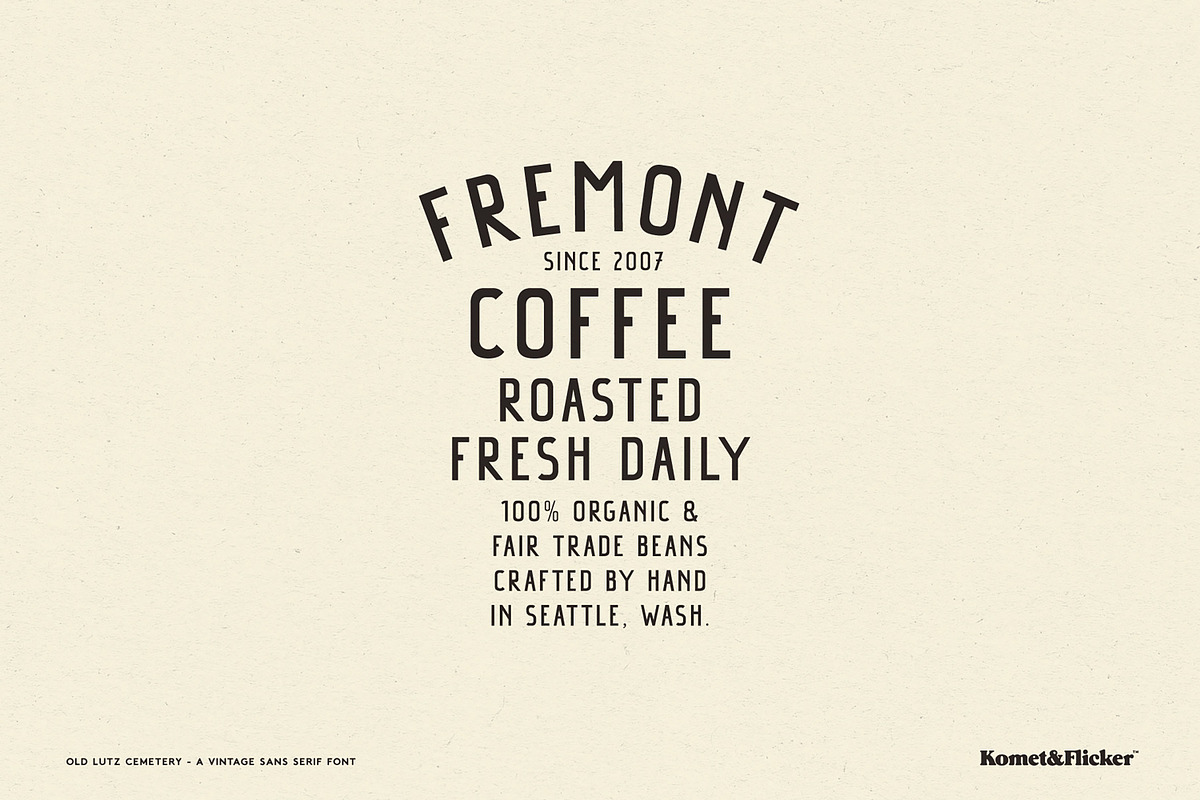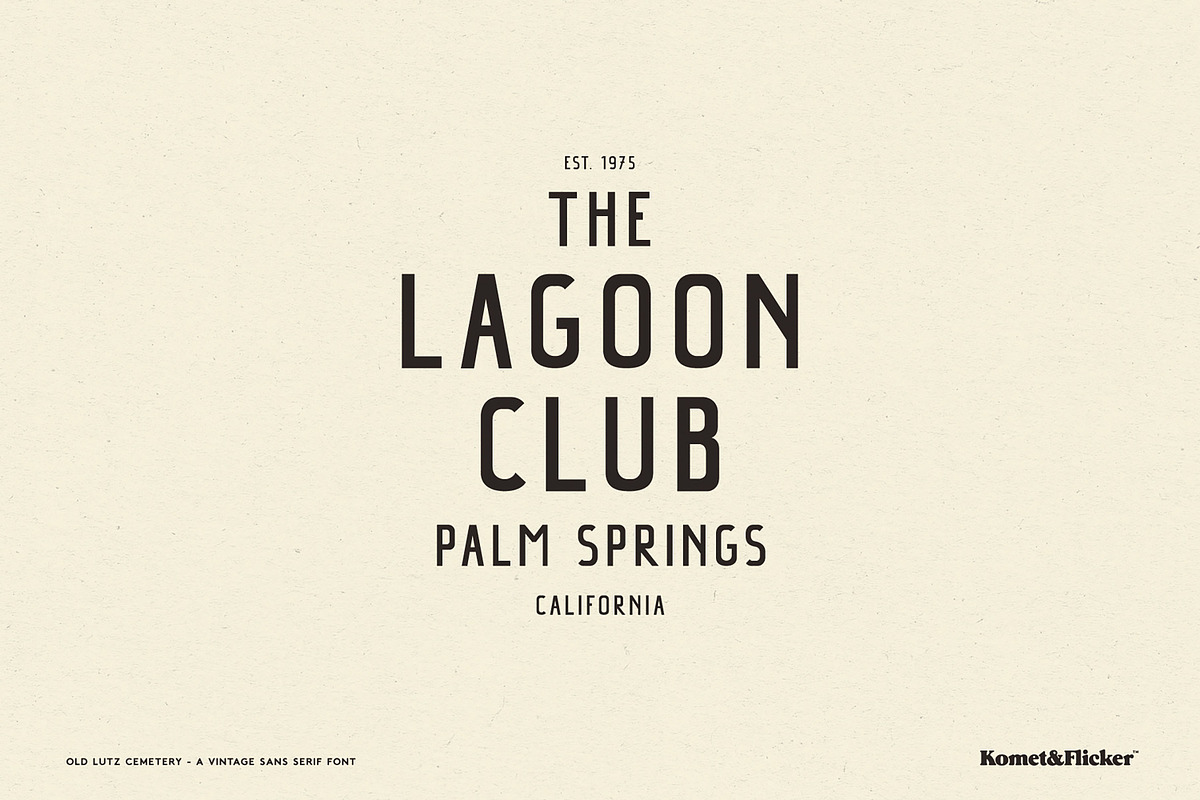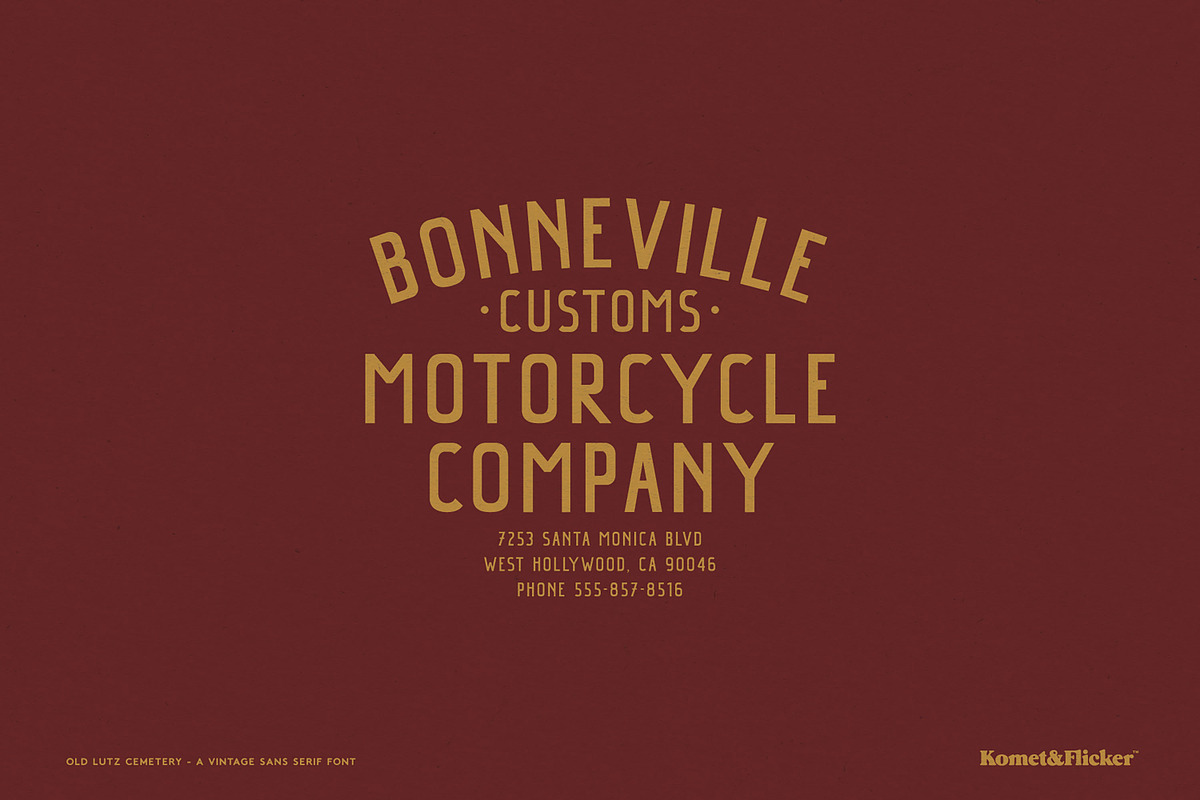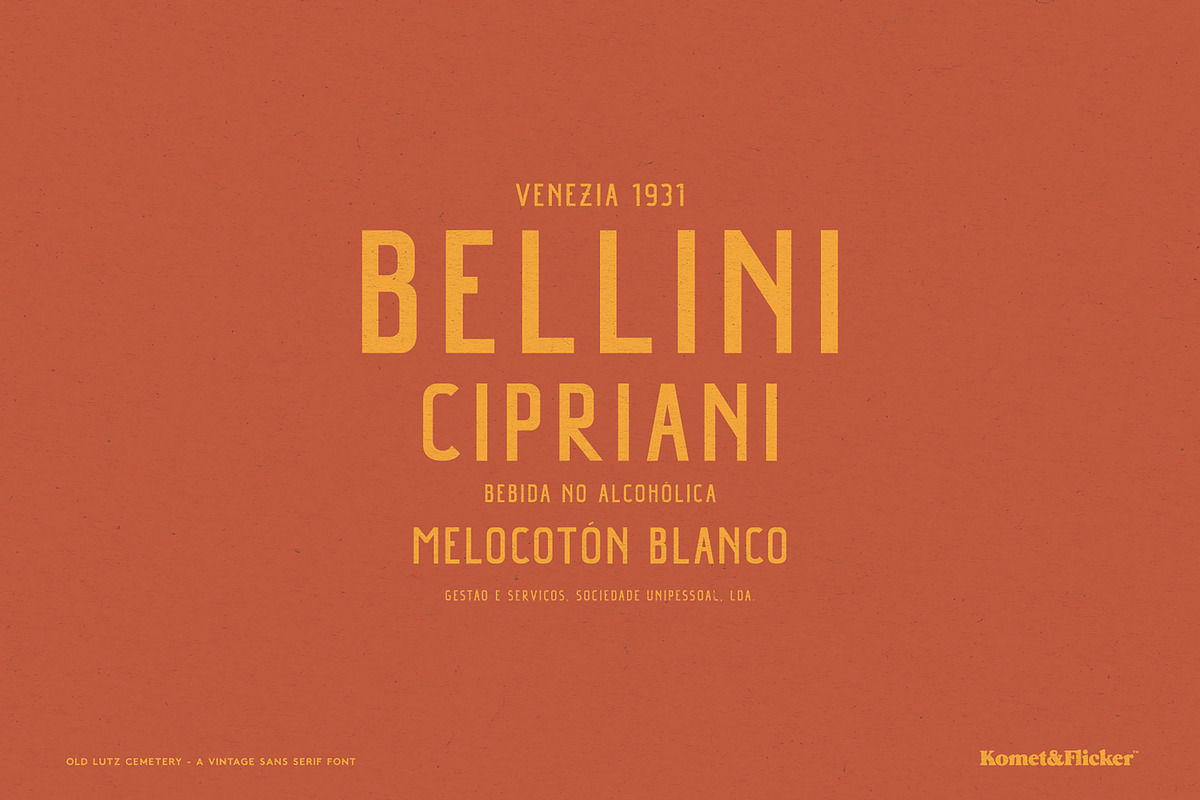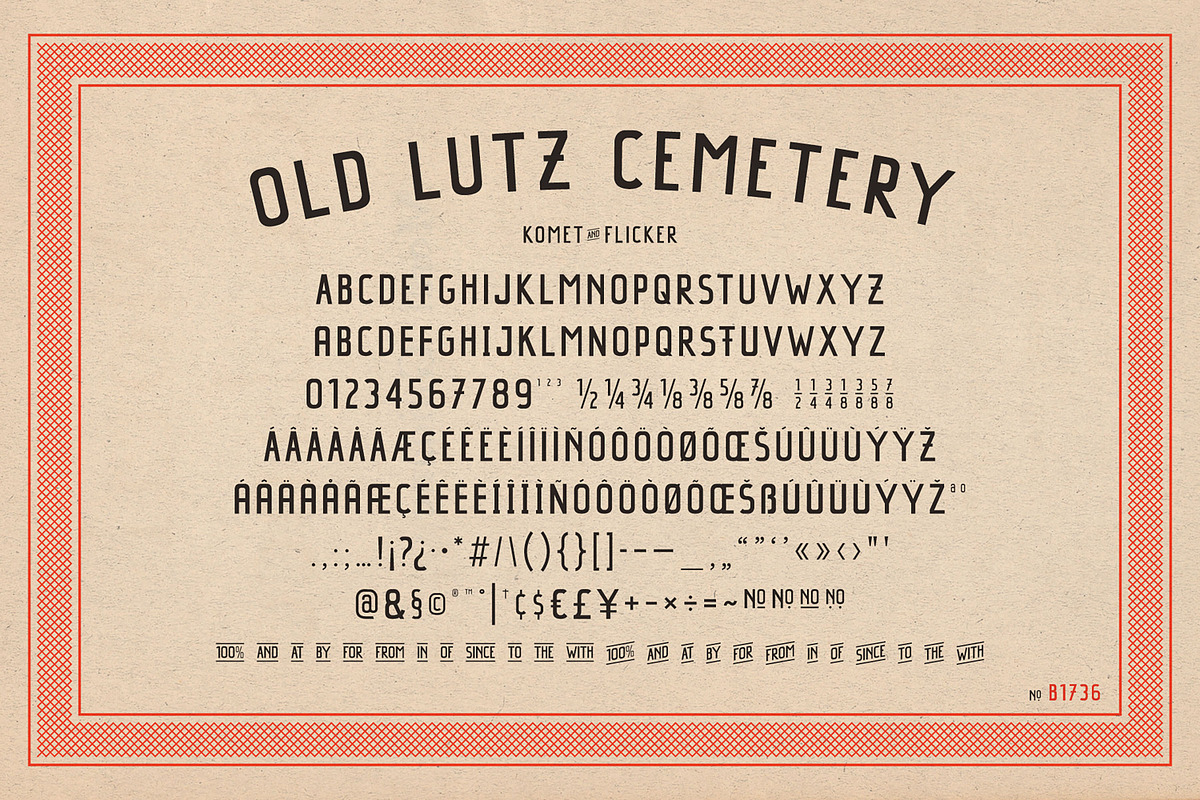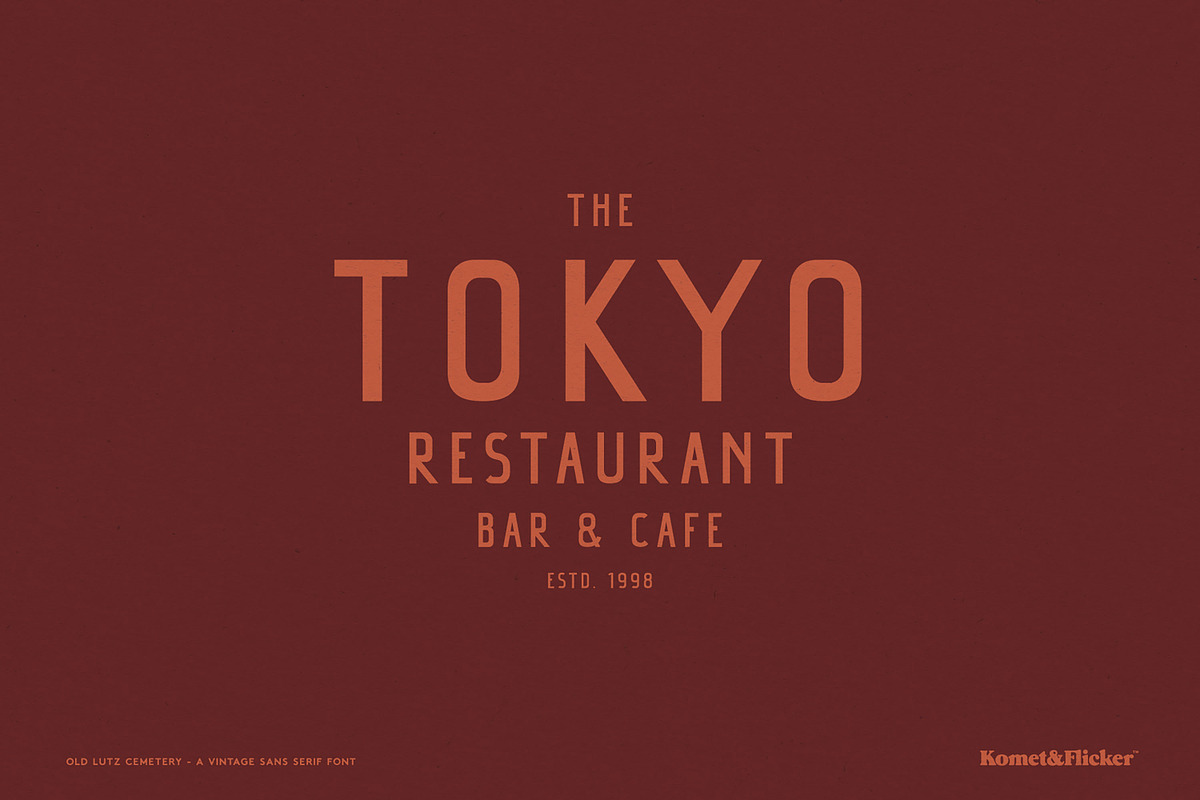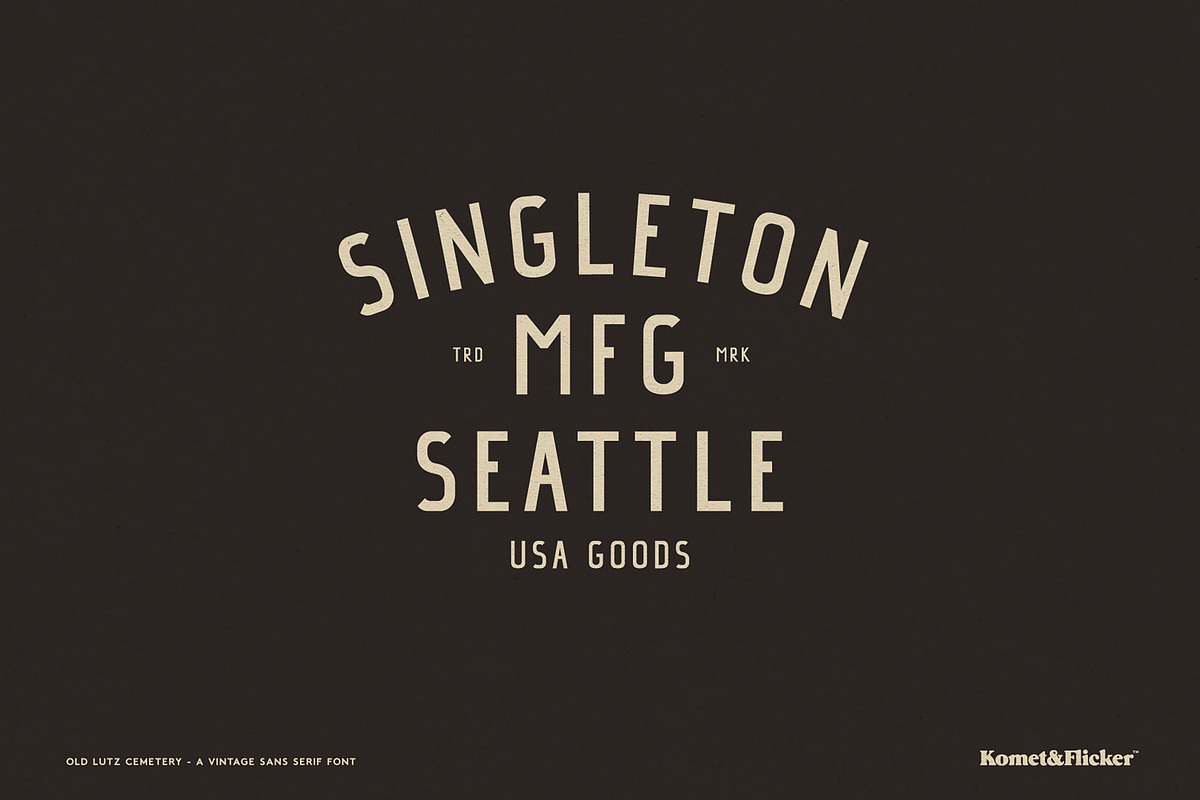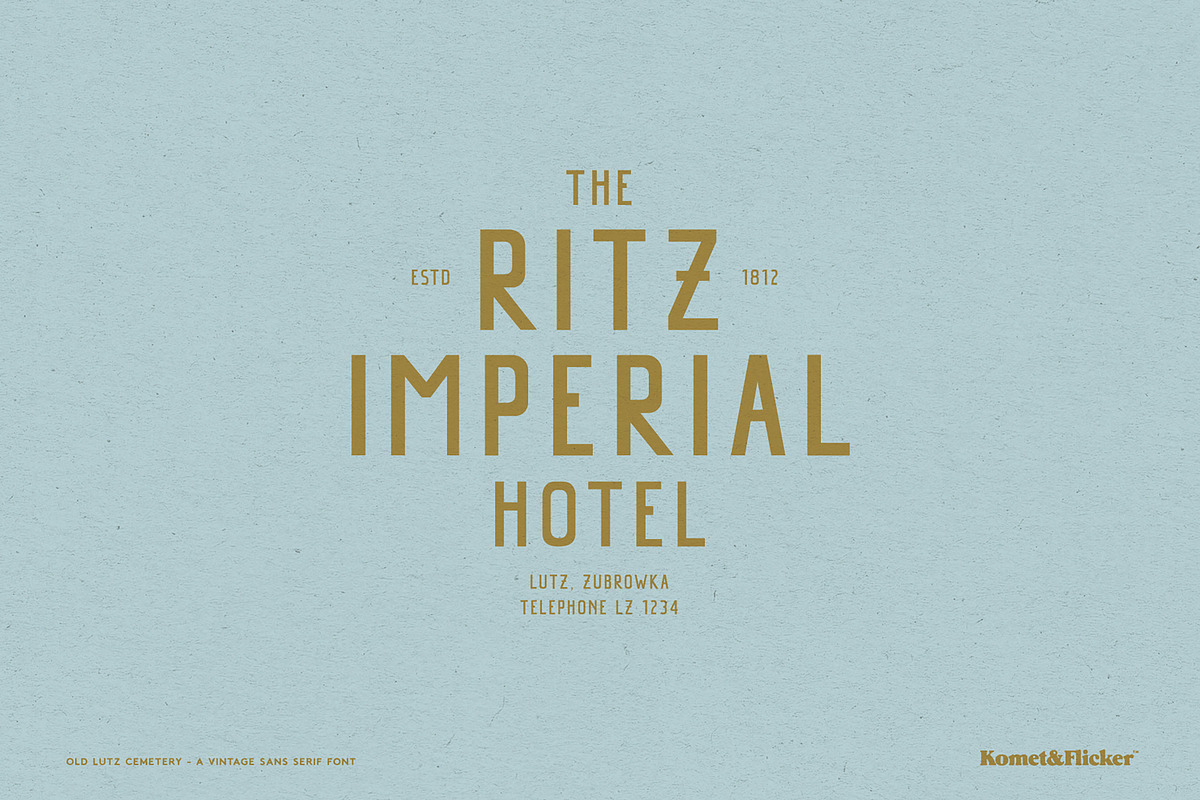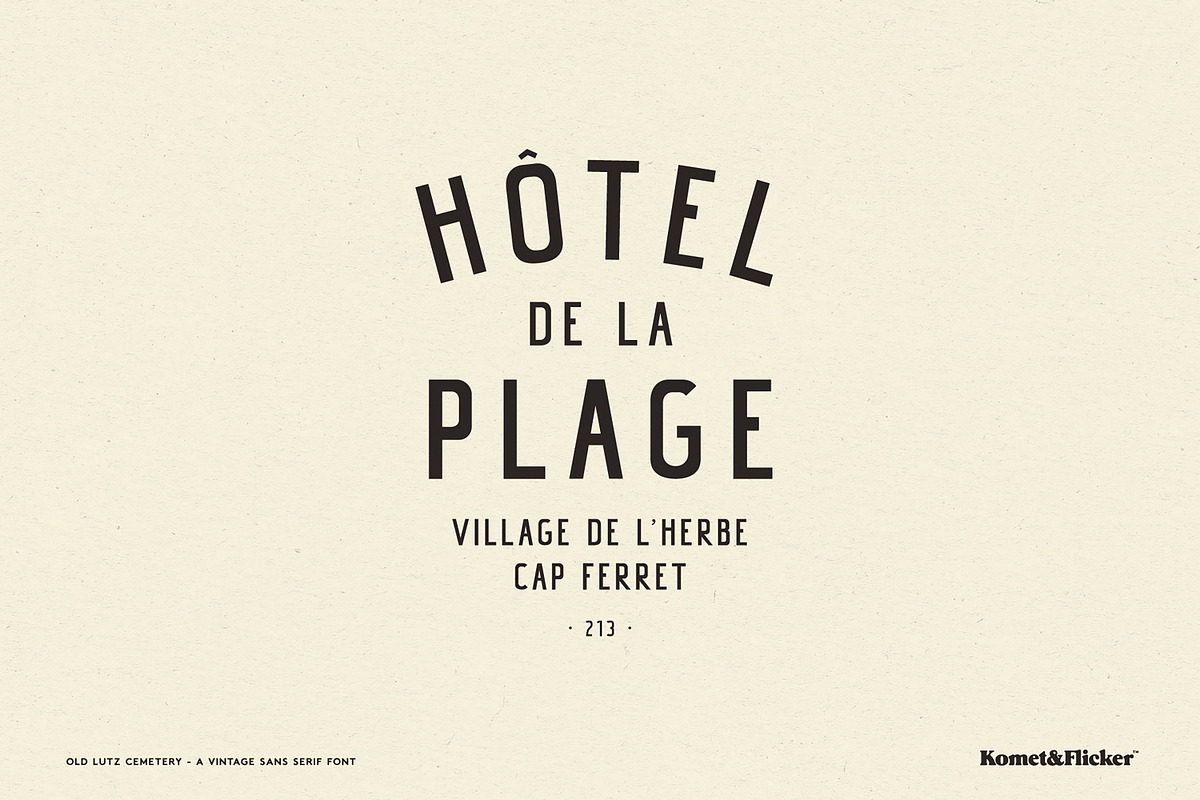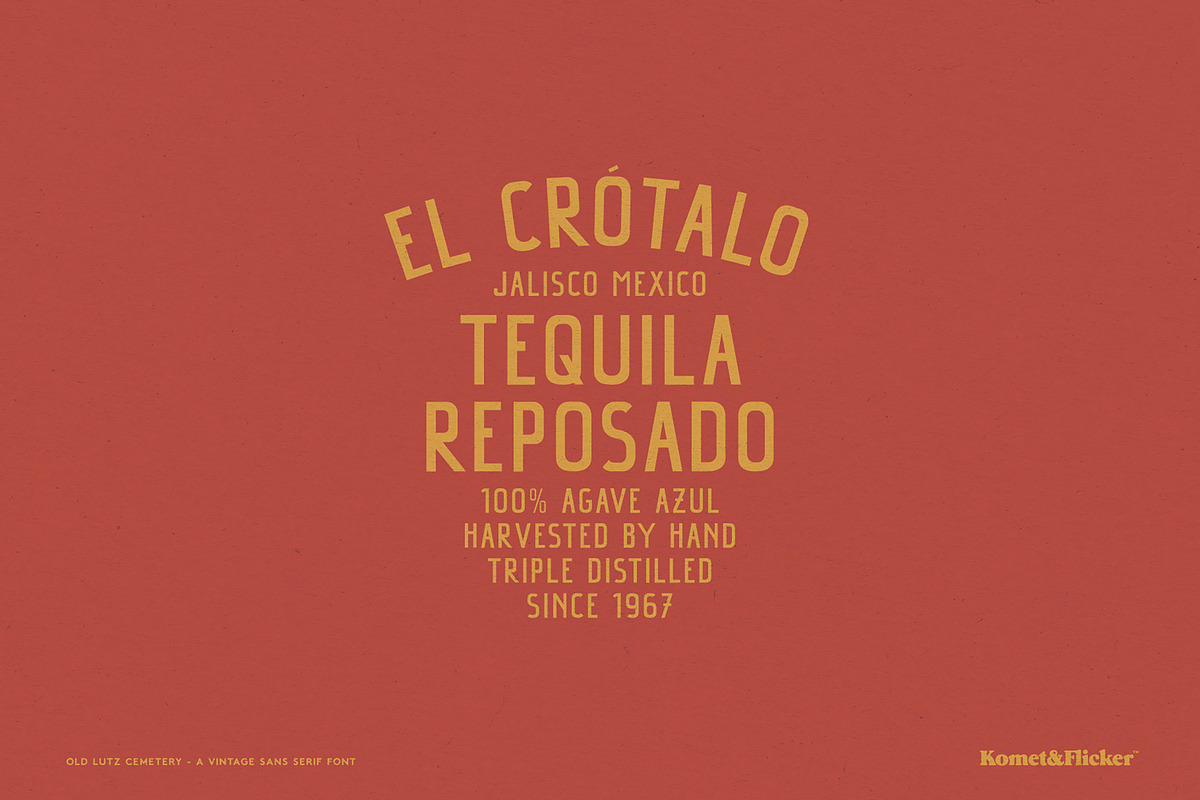
Old Lutz Cemetery
Old Lutz Cemetery is a sans serif typeface inspired by vintage European lettering; the kind of worn, hand-painted signage that gives old typography its character. Clean geometric structure meets subtle irregularities inspired by these historical sources, giving the font warmth and personality without sacrificing readability. Also included is a set of 12 custom connector words in two styles allowing for seamless typography and enhancing the flow of your text.
Full A-Z uppercase latin character set
22 alternate lowercase charters
Select European specific characters
Pre-made common fractions
Numbers, punctuation, and select symbols
Set of 12 custom connecting word glyphs in two styles